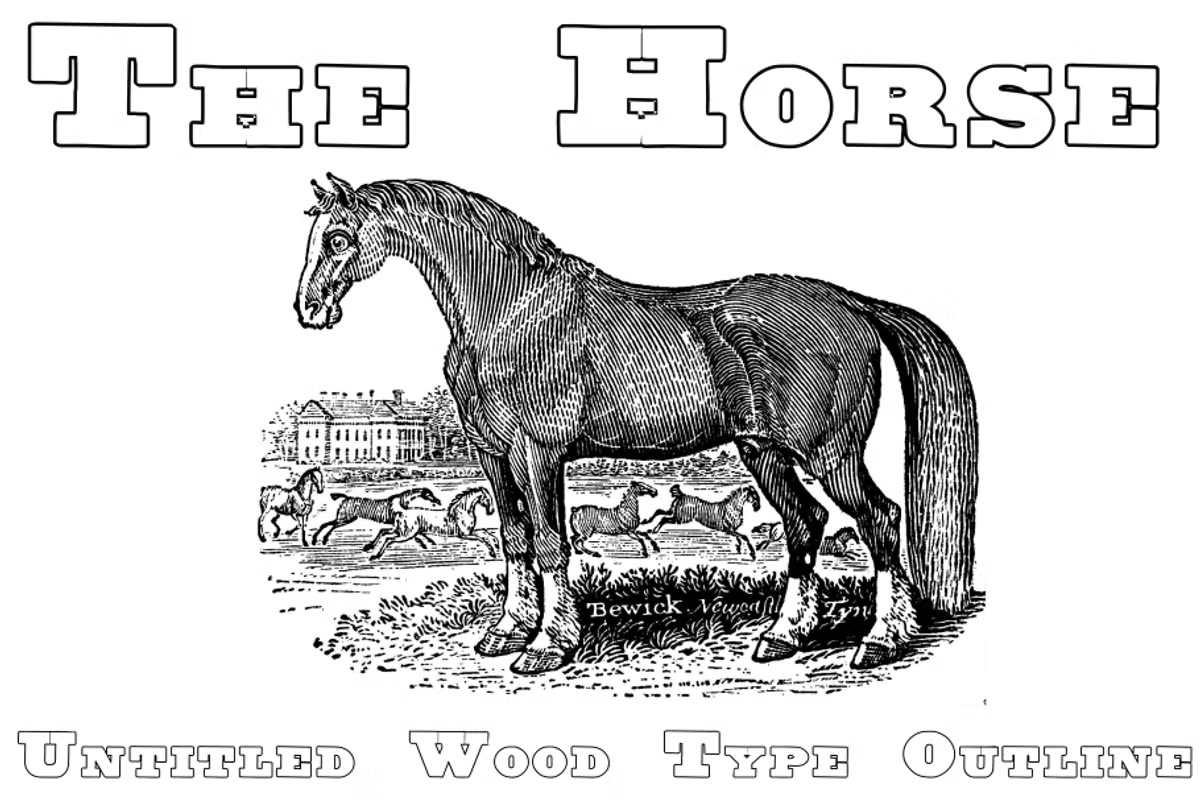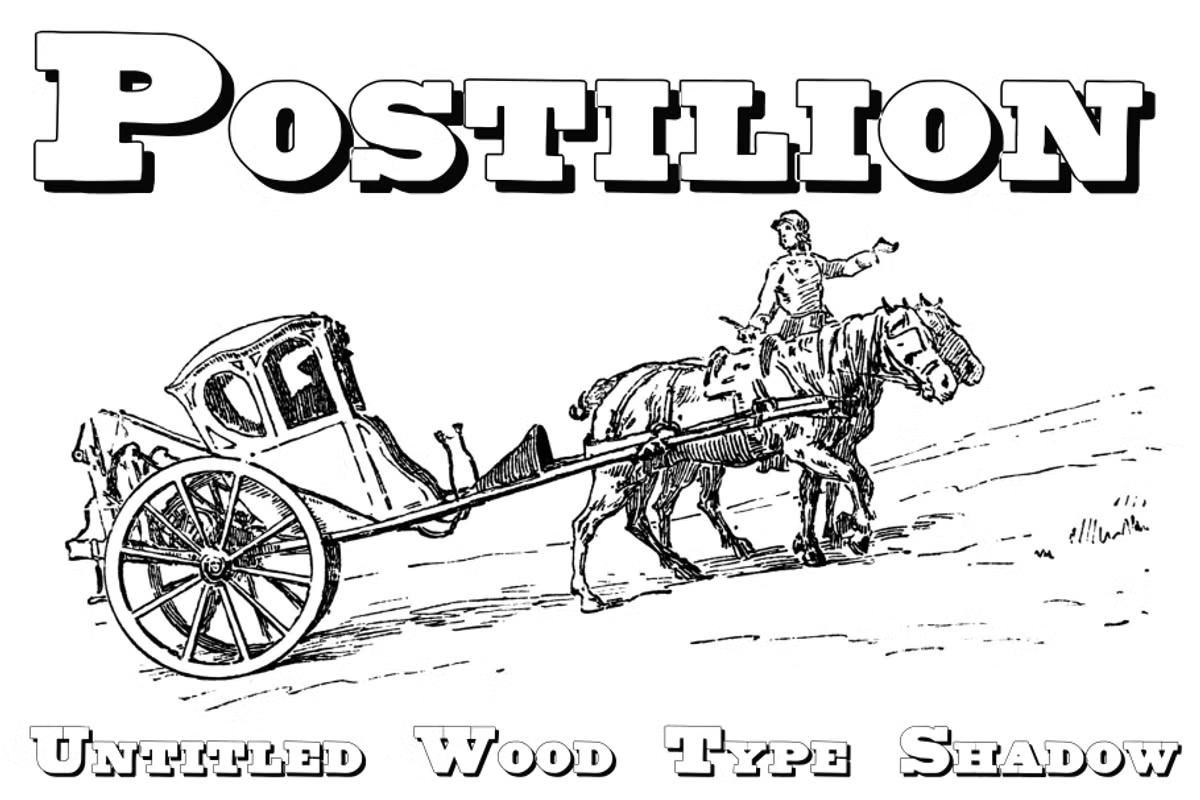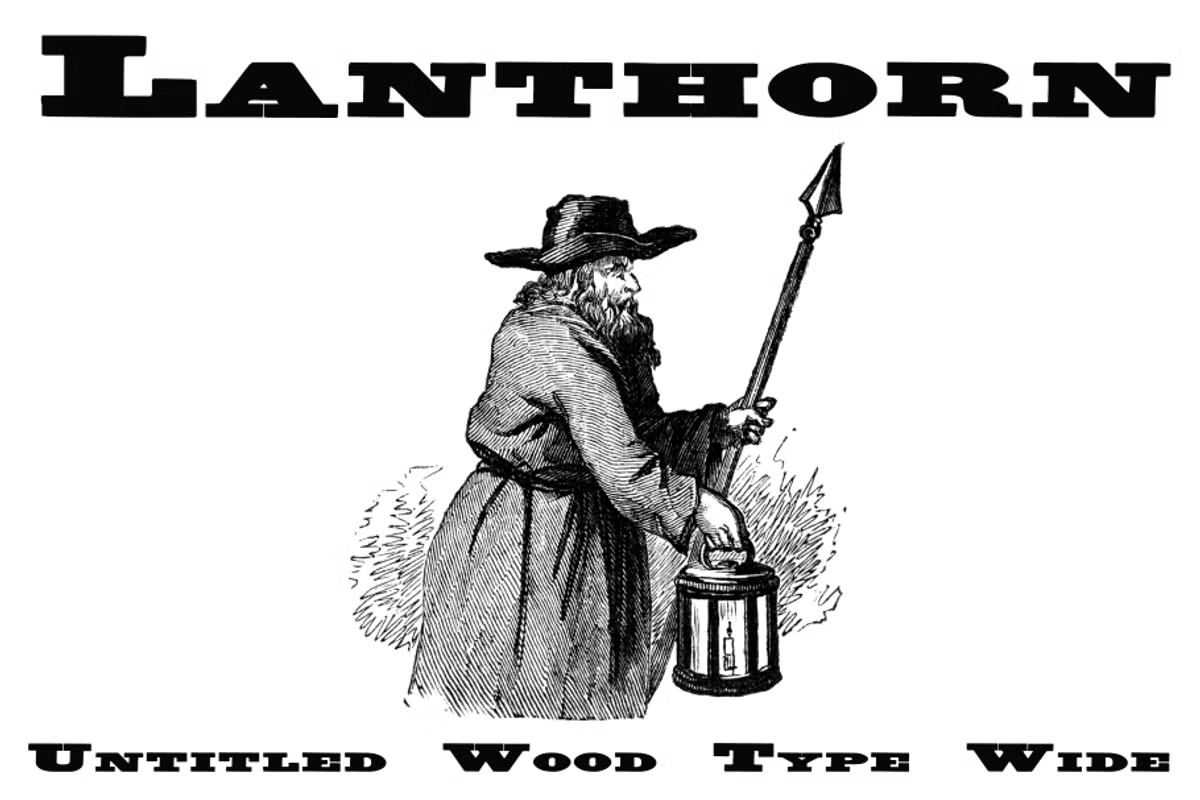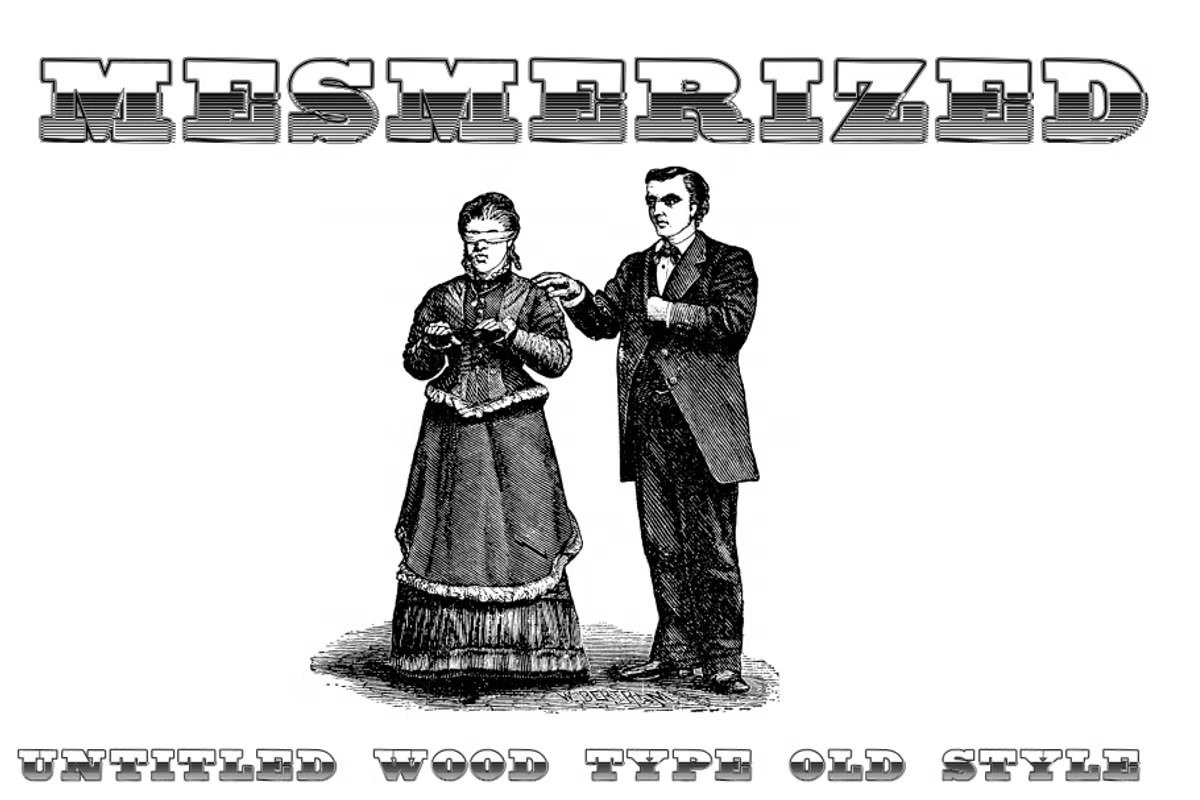
About Untitled Wood Type
Untitled Wood Type is an antique and ancient serif font that captures the essence of bygone eras, with a classic design that evokes a sense of history and tradition. The letters are ornate and detailed, with flourishes and serifs that create a sense of…